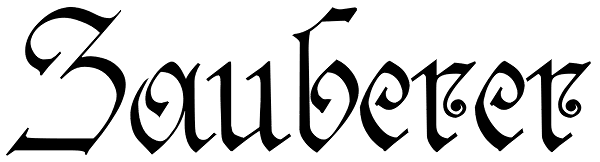
Zauberer
The Scriptorium got its start in the early days of personal computers with a few font designs for the Commodore 64, and the very first font which we did back then in the early 1980s was a gothic calligraphy font. That style of fonts - the medieval...